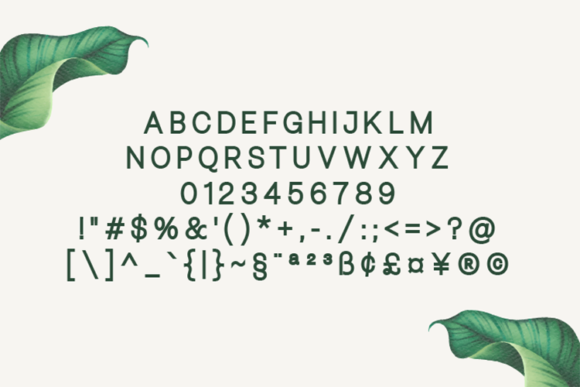
The Perfect Typography Moment
There’s nothing quite like the rush of excitement when a design concept finally comes together. The colors are just right, the layout is perfectly balanced, and the typography is, well, just beautiful. It’s a feeling that every designer knows and loves. And sometimes, it’s all about the right font to take your design to the next level.
Enter the Bellezza Extra Bold Font, a modern sans serif with a geometric touch that’s designed to make a statement. Perfect for graphic design and display purposes, this font is the perfect addition to any designer’s toolkit. Whether you’re creating a bold logo or a striking headline, Bellezza Extra Bold Font is sure to deliver.
As a designer, you know that the right font can make all the difference in your work. That’s why the Bellezza Extra Bold Font is such a valuable asset. With its clean lines and geometric flair, it’s the perfect choice for any project that needs a little extra oomph.
Bellezza Extra Bold Font Key Features
- Font Family: Bellezza Extra Bold
- Unique Characteristics: Elegant and luxurious feel, ideal for high-end branding and packaging design
- Language Support: Supports over 100 languages, including Latin, Cyrillic, and Greek alphabets
- Kerning and Ligatures: Includes advanced kerning and ligature features for professional typography
Bellezza Extra Bold Font Review
Overall, I think Bellezza Extra Bold Font has a lot of potential, but it’s not without its flaws. Let’s start with what works well:
- ✨ Elegant and luxurious feel: The font has a sophisticated, high-end look that would be perfect for luxury brands or fashion designs.
- ✨ Good legibility: The bold weight of the font makes it easy to read, even at smaller font sizes.
- ✨ Unique design: The Bellezza Extra Bold Font has a distinctive design that sets it apart from more common fonts.
However, there are some limitations that prevent me from giving it a full 5-star review:
- ⚠️ Limited font sizes: The font is best suited for larger font sizes, as it can become distorted at smaller sizes.
- ⚠️ Not ideal for body text: Due to its bold weight, the font can be overwhelming for large blocks of text.
- ⚠️ May not be suitable for all design styles: The luxurious feel of the font may not be the best fit for more casual or playful designs.
Overall, I would recommend Bellezza Extra Bold Font for designs where a sophisticated, high-end feel is required, but be aware of its limitations and use it accordingly.
The Bellezza Extra Bold Font is ideal for creating eye-catching headlines, titles, and headings. It’s also great for adding a touch of elegance to your designs. Some common use cases include:
- Luxury brand logos and packaging
- High-end advertising and marketing materials